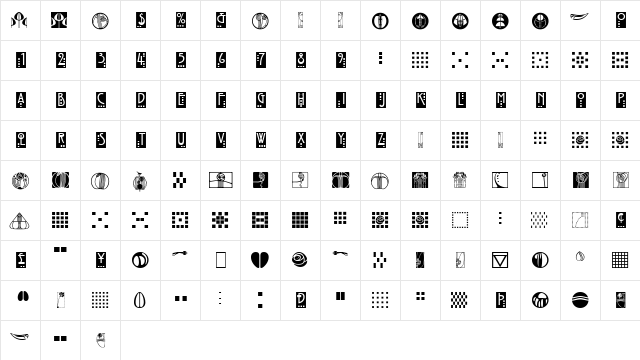
Rennie Mack Ornaments ITC Regular
| Foundry | International Typeface Corporation |
| Designer | Phill Grimshaw |
Design Context for Rennie Mack Ornaments ITC Typeface
Rennie Mack Ornaments ITC is built around its visual character rather than neutral utility — its distinctive forms are designed to make an impression at display sizes.
Font Pairing: Pair with a clean neutral sans-serif for body copy to let Rennie Mack Ornaments ITC's character lead without overwhelming the composition.
Pro Tip: Treat Rennie Mack Ornaments ITC as the centrepiece of your typographic hierarchy. One strong heading set in a decorative face can carry an entire layout.